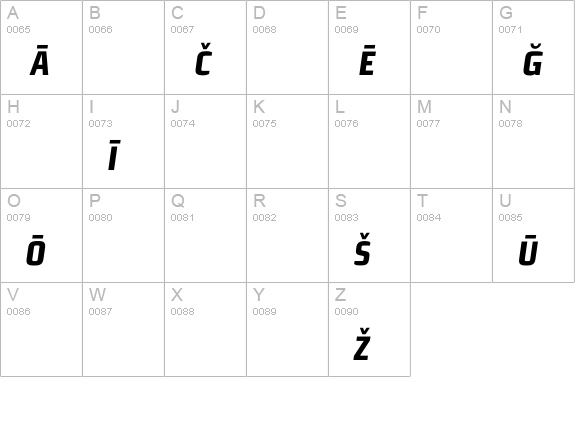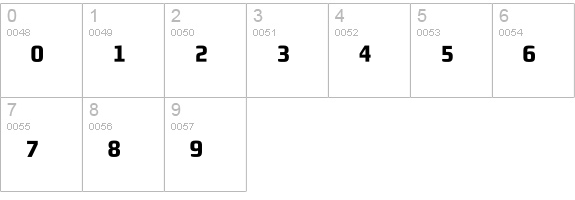
MorganSansCond Bold ItalicPi is a strong, high-contrast variant in the MorganSansCond typeface family \xE2\x80\x94 well suited to headlines, attention-grabbing titles, and strong calls-to-action.
MorganSansCond Bold ItalicPi exudes a sense of modern sophistication with its sleek design and bold, italicized characters. This unique font is perfect for making a bold statement in your design projects, whether for branding, advertising, or creative purposes. The stylish slanted letters add a touch of elegance and professionalism to any text, making it stand out from the crowd. And the best part? MorganSansCond Bold ItalicPi is available for free download at FontsMarket.com! You can easily access this stunning font and elevate your designs without breaking the bank. Don't miss out on the opportunity to enhance your projects with this beautiful typeface that is just a click away. Download MorganSansCond Bold ItalicPi today and watch your designs come to life with style and flair.